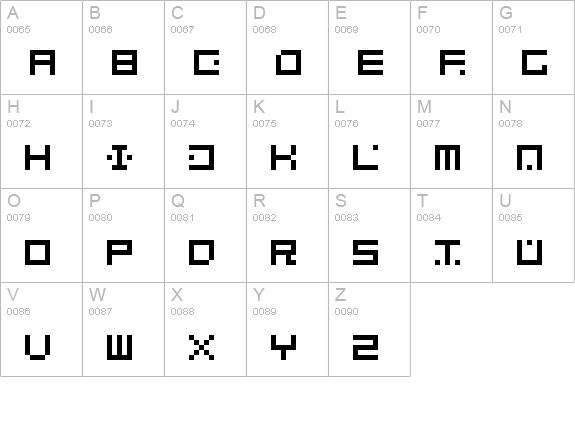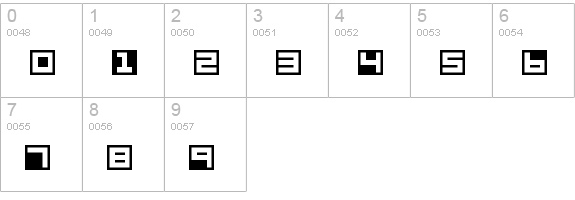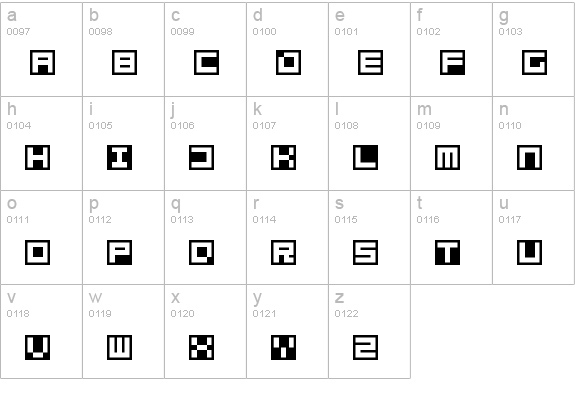
Terrablox Font Details
Terrablox is a free for personal use font in the Modern > Techno category, designed by Darrell Flood. It has been downloaded 66 times and is available for Windows, Mac and Linux.
Terrablox is a versatile and modern font that is sure to make a statement in any design project. With its clean lines and contemporary feel, this font is perfect for both headings and body text. The unique geometric shapes give Terrablox a distinct and eye-catching look that will captivate your audience.